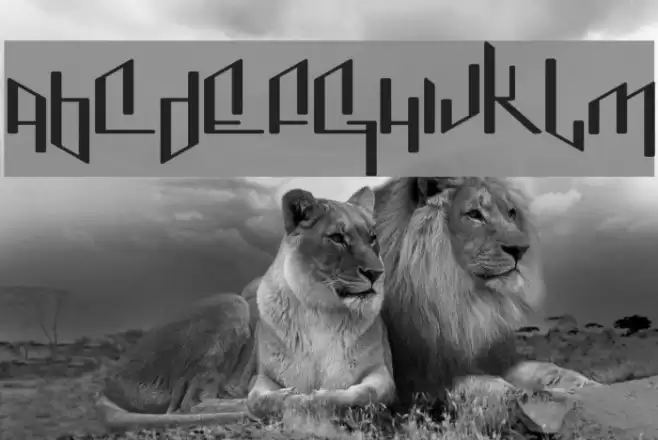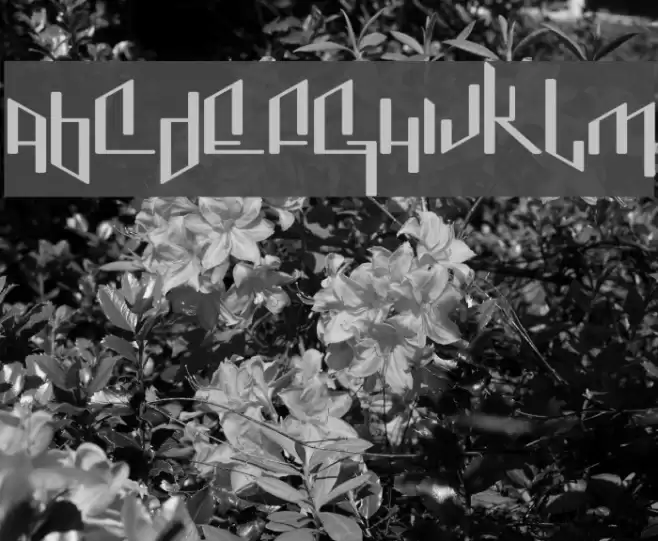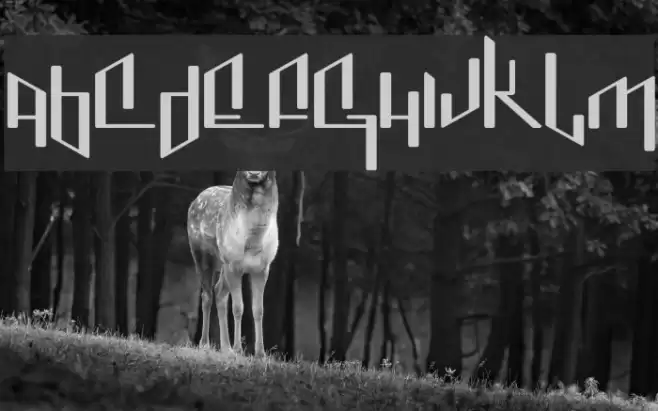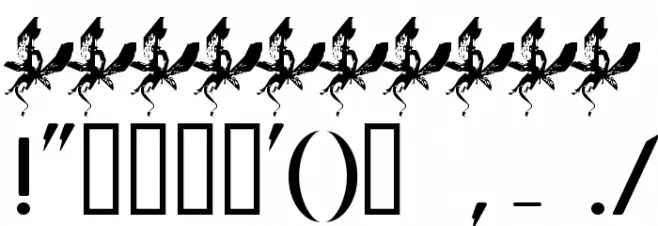
Jenice Font
Jenice Description
This font features a unique, angular design with a modern, futuristic aesthetic. The characters are constructed with sharp, geometric lines, giving them a distinct, edgy appearance. The uppercase and lowercase letters maintain a consistent style, with a strong emphasis on vertical and diagonal strokes. The numerals and special characters follow the same design principles, ensuring a cohesive look across all glyphs. The font's bold and striking nature makes it ideal for attention-grabbing headlines and display purposes. Its unconventional style may not be suitable for body text but excels in creative and artistic projects.
A bold, angular font with a futuristic, geometric design from Quirky fonts.
- Proposed Projects: Ideal for sci-fi themed designs, modern posters, album covers, and branding that requires a bold statement.
- Overall Style: Futuristic, Edgy